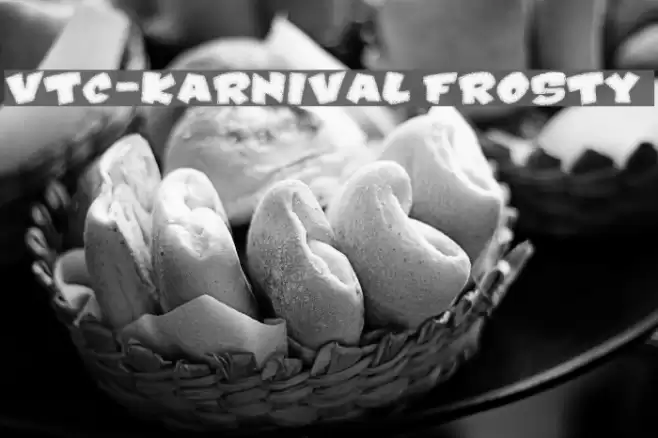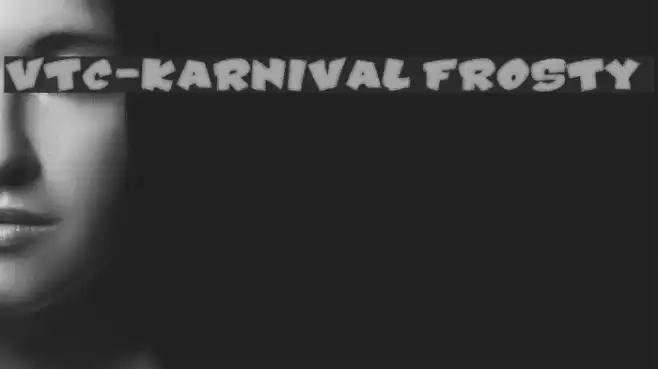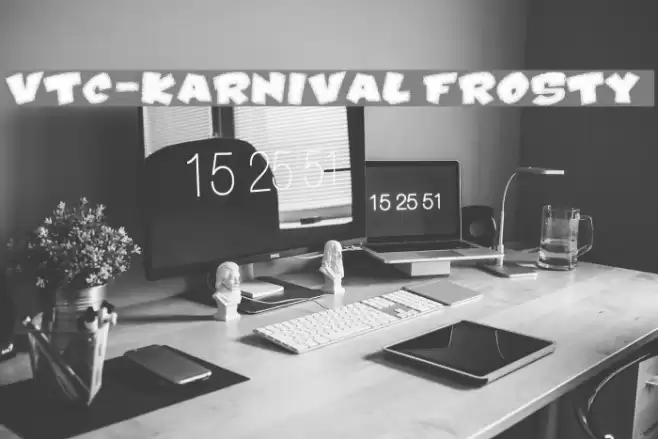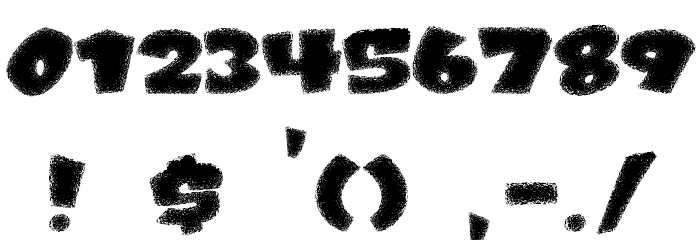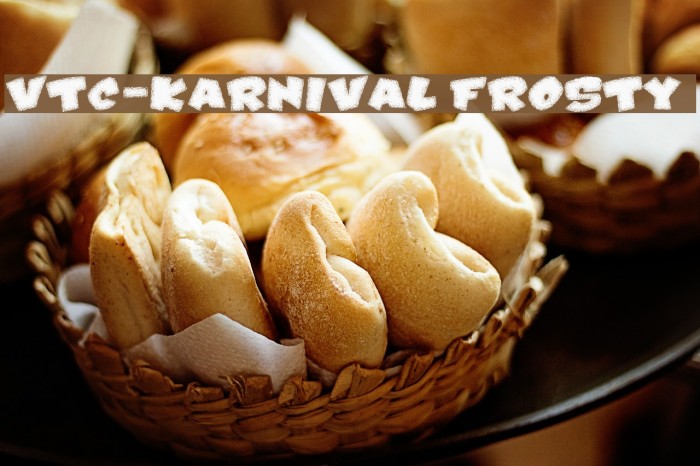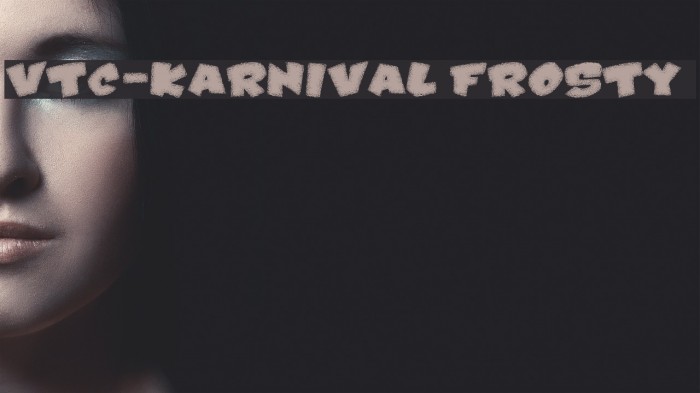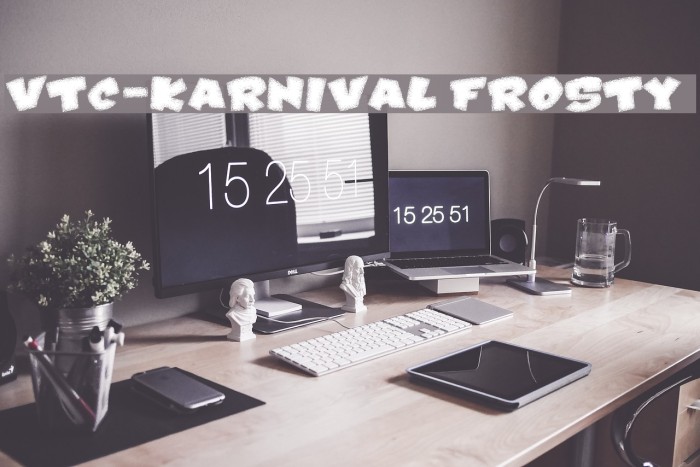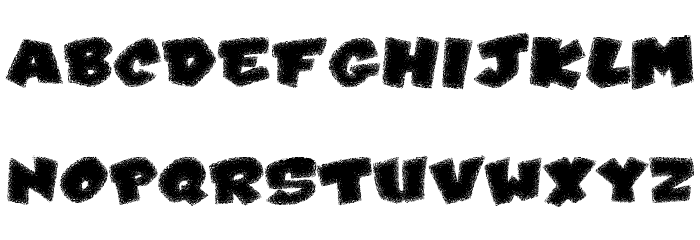
VTC-Karnival Frosty Font
VTC-Karnival Frosty Description
This font features a bold and playful style, characterized by its thick, uneven strokes and a frosty texture that gives it a unique, eye-catching appearance. The letters are slightly irregular, adding to the whimsical and fun aesthetic. The uppercase and lowercase letters maintain a consistent style, with rounded edges and a sense of movement. The numbers and special characters follow the same design principles, ensuring a cohesive look across all elements. This font is ideal for projects that require a lively and energetic feel, such as children's books, party invitations, or festive branding.
A bold, playful font with a frosty texture and whimsical style from Uncategorized fonts.
- Proposed Projects: Ideal for children's books, party invitations, festive branding, and playful designs.